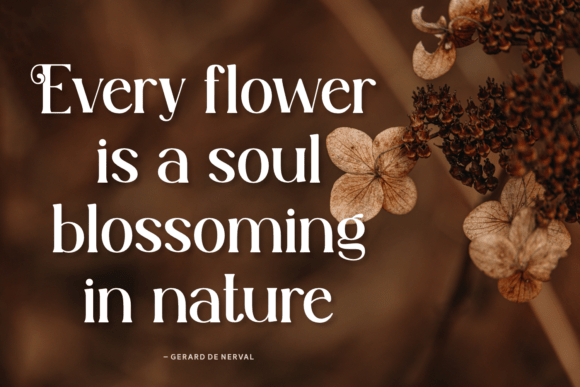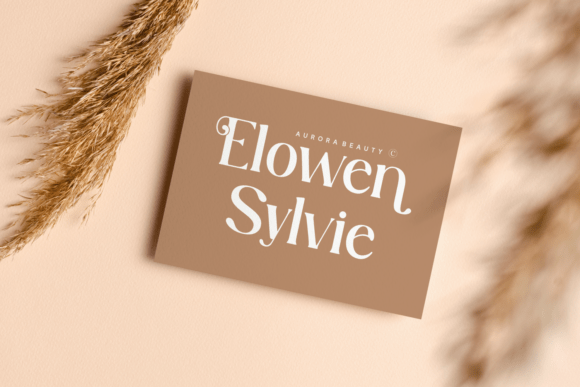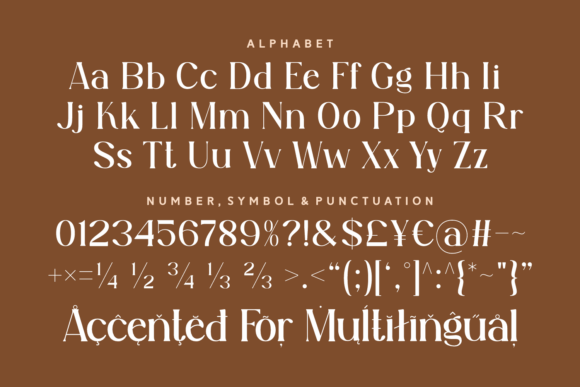
Introduction to Fioren Font
Fioren is an elegant modern serif font that blends sophistication with a touch of artistic flair.
Featuring graceful curves, stylish details, and balanced proportions, this typeface is ideal for luxury branding, editorial designs, wedding invitations, and high-end packaging Fioren captures timeless beauty while maintaining a fresh, contemporary edge, making it a versatile choice for both classic and modern projects.